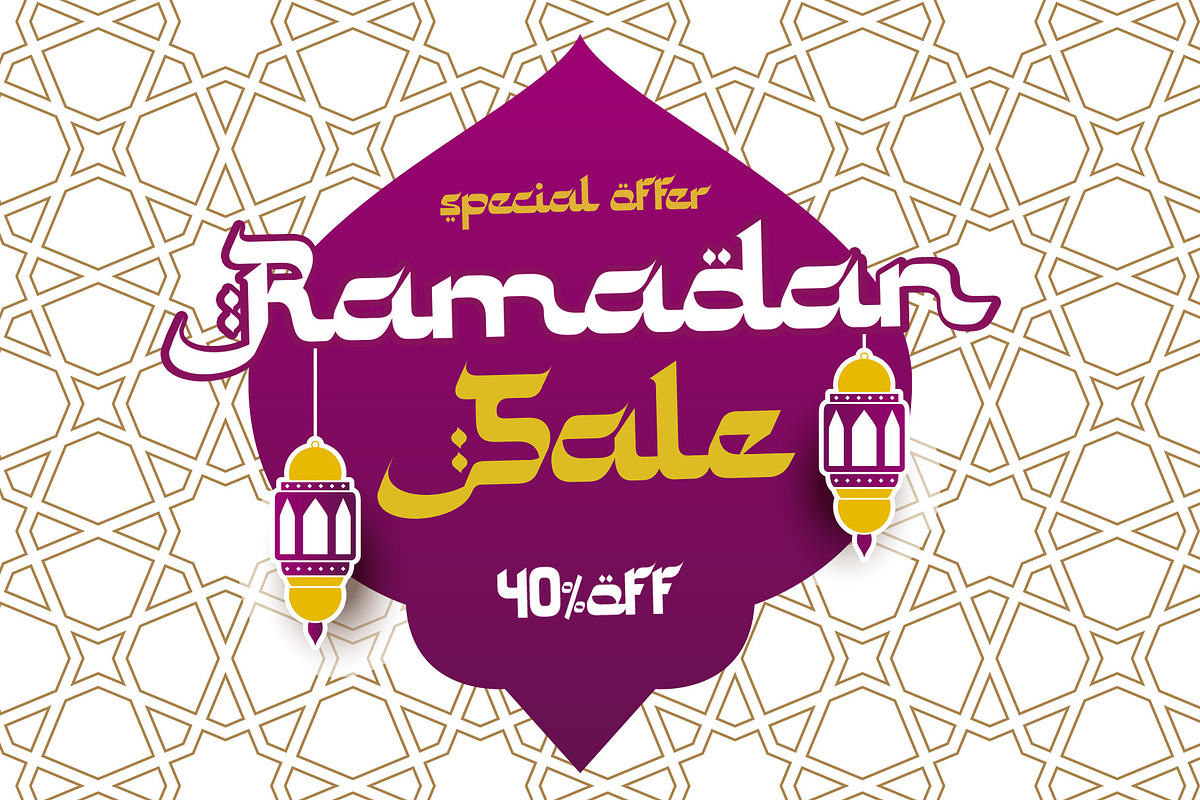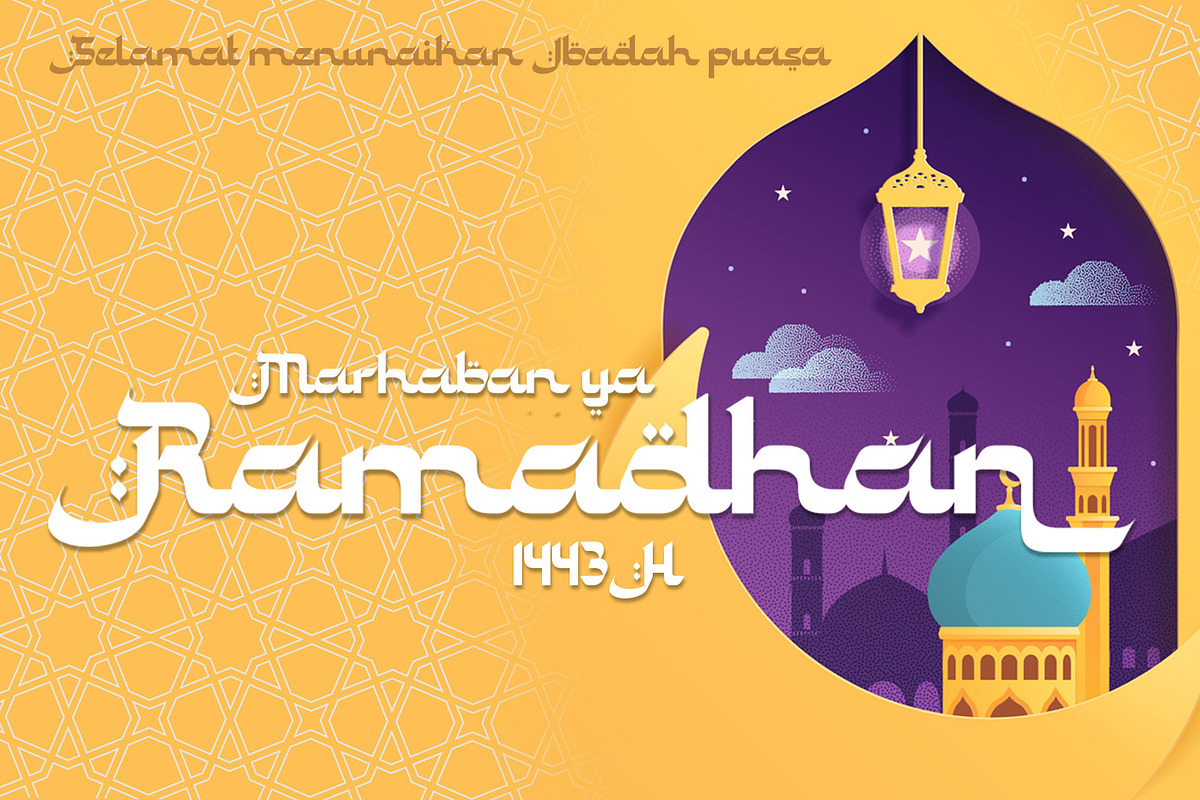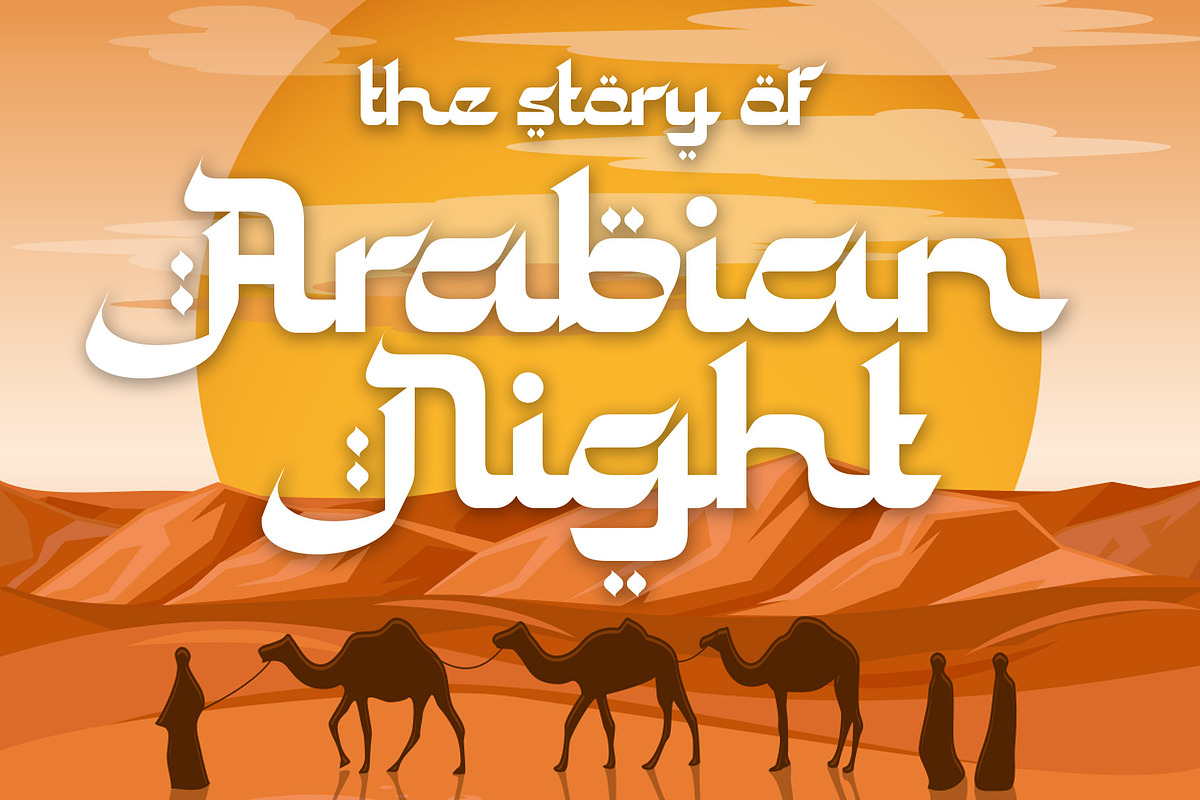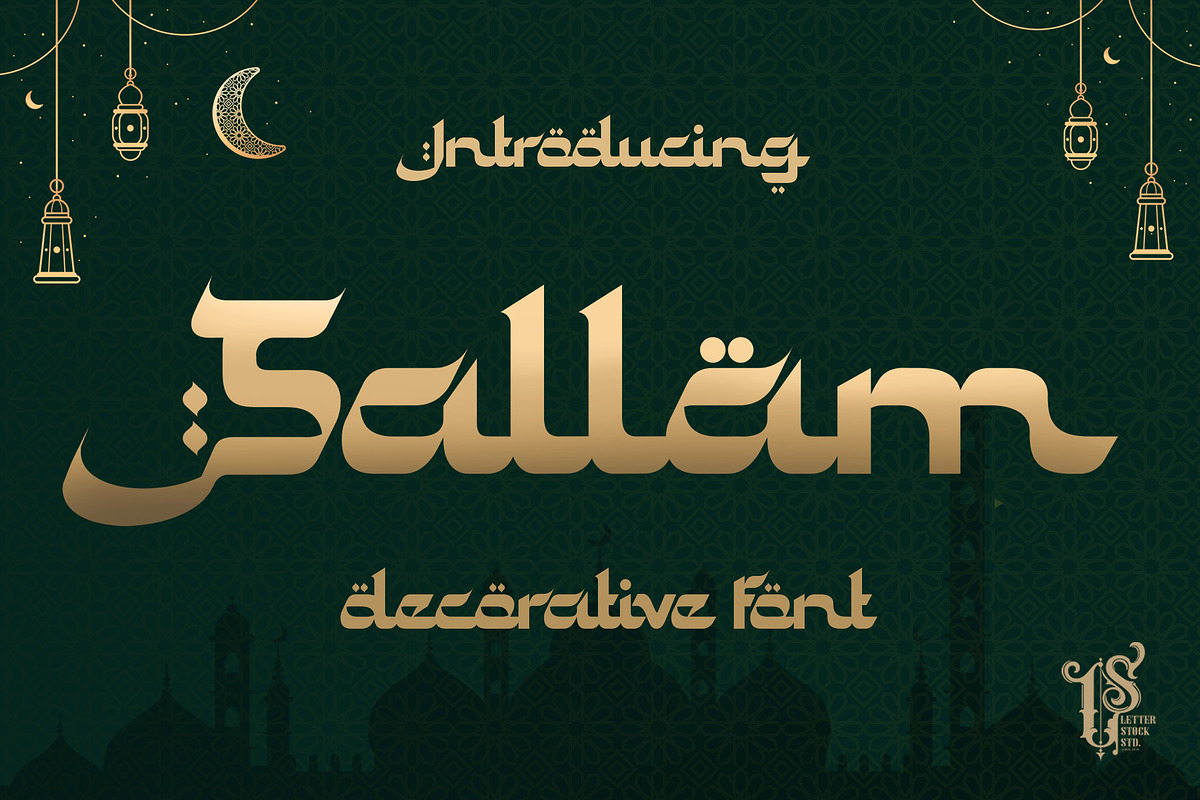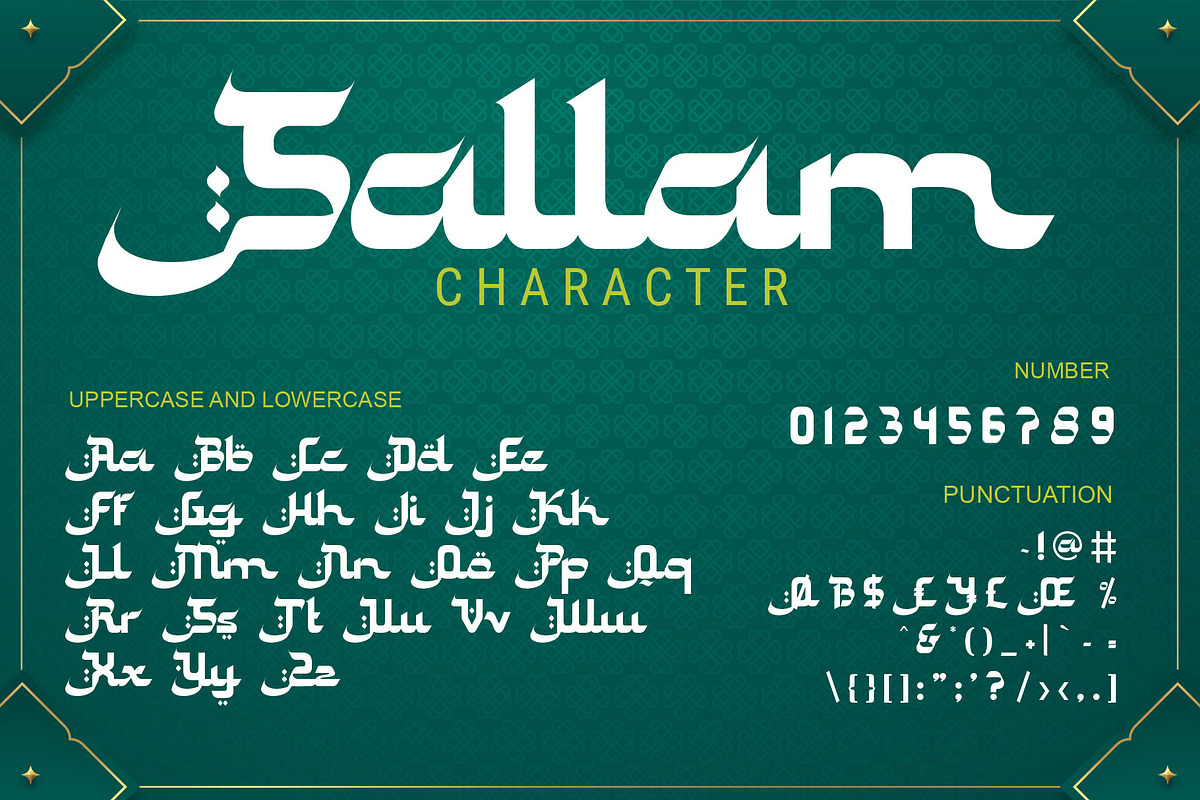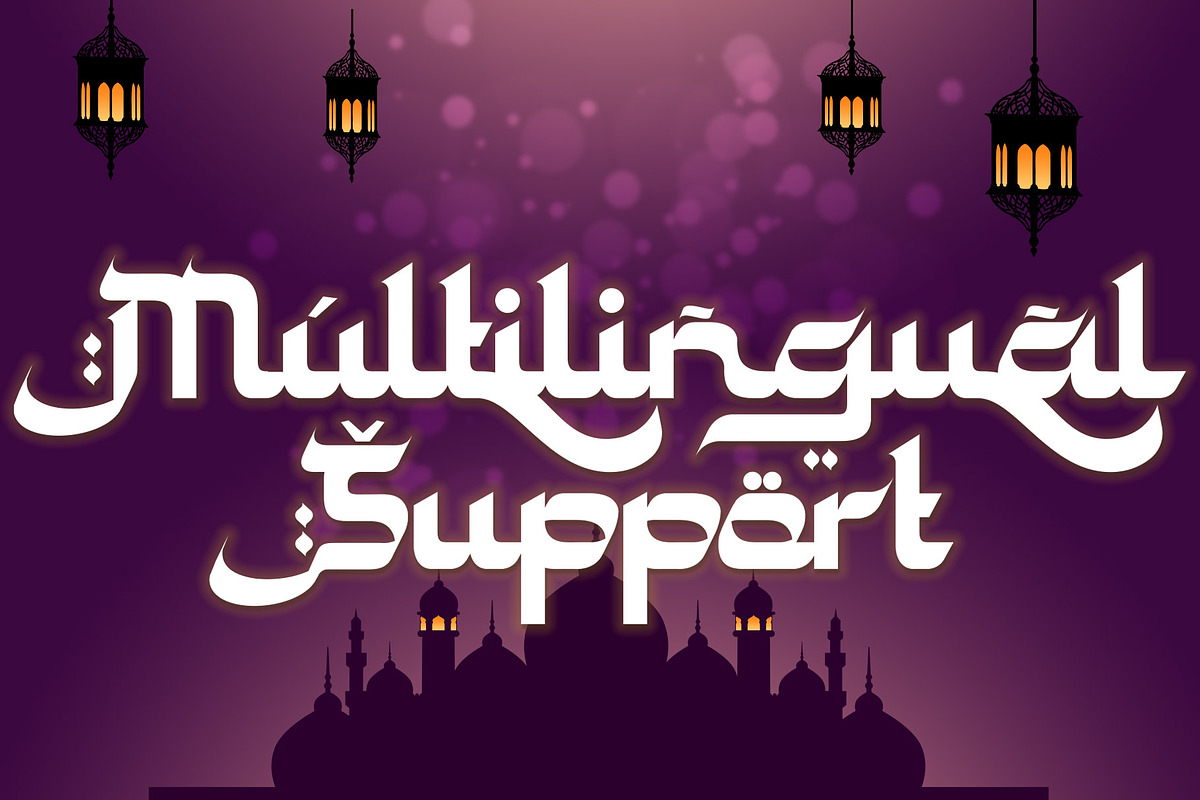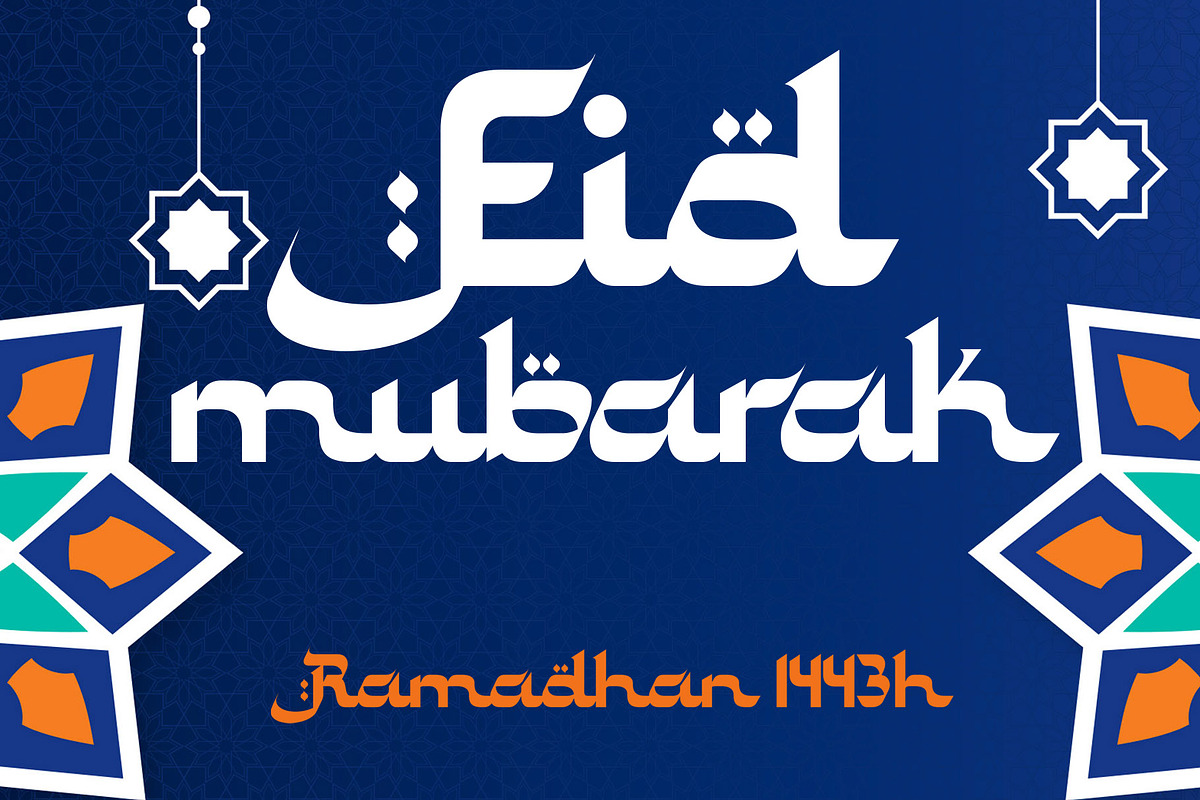
Sallam
Sallam is a decorative font that has a middle east style font, and it was crafted by hand to add a natural handmade feeling and i make it clean with pentool.
If you looking for decorative font with middle east tyle for your title or even branding and logotype, Sallam is a great choice for that purpose.
Sallam font is very good looking in logotype, labels, decorative lettering, playful design, product packaging, invitation titled, advertising and others.
- Multilingual support (Western European characters).